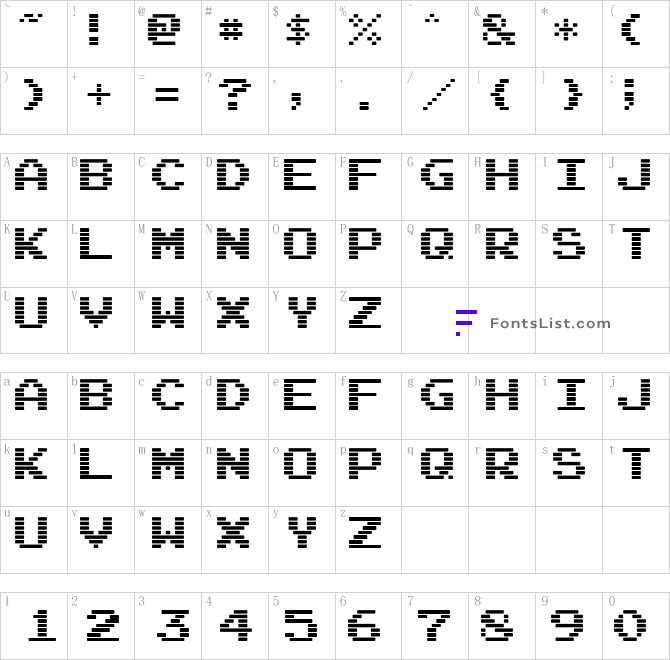
- Font Name:Arcade Interlaced
Arcade-Interlaced.ttf is a very beautiful artistic font, Arcade-Interlaced.ttf is widely used in the design and printing of various books and pictures,Arcade-Interlaced.ttf has a strong visual impact,Arcade-Interlaced.ttf is a commonly used font in newspapers, magazines and books, and is used in posters, e-commerce Poster design, store design, logo design, font design and other fields.Arcade-Interlaced.